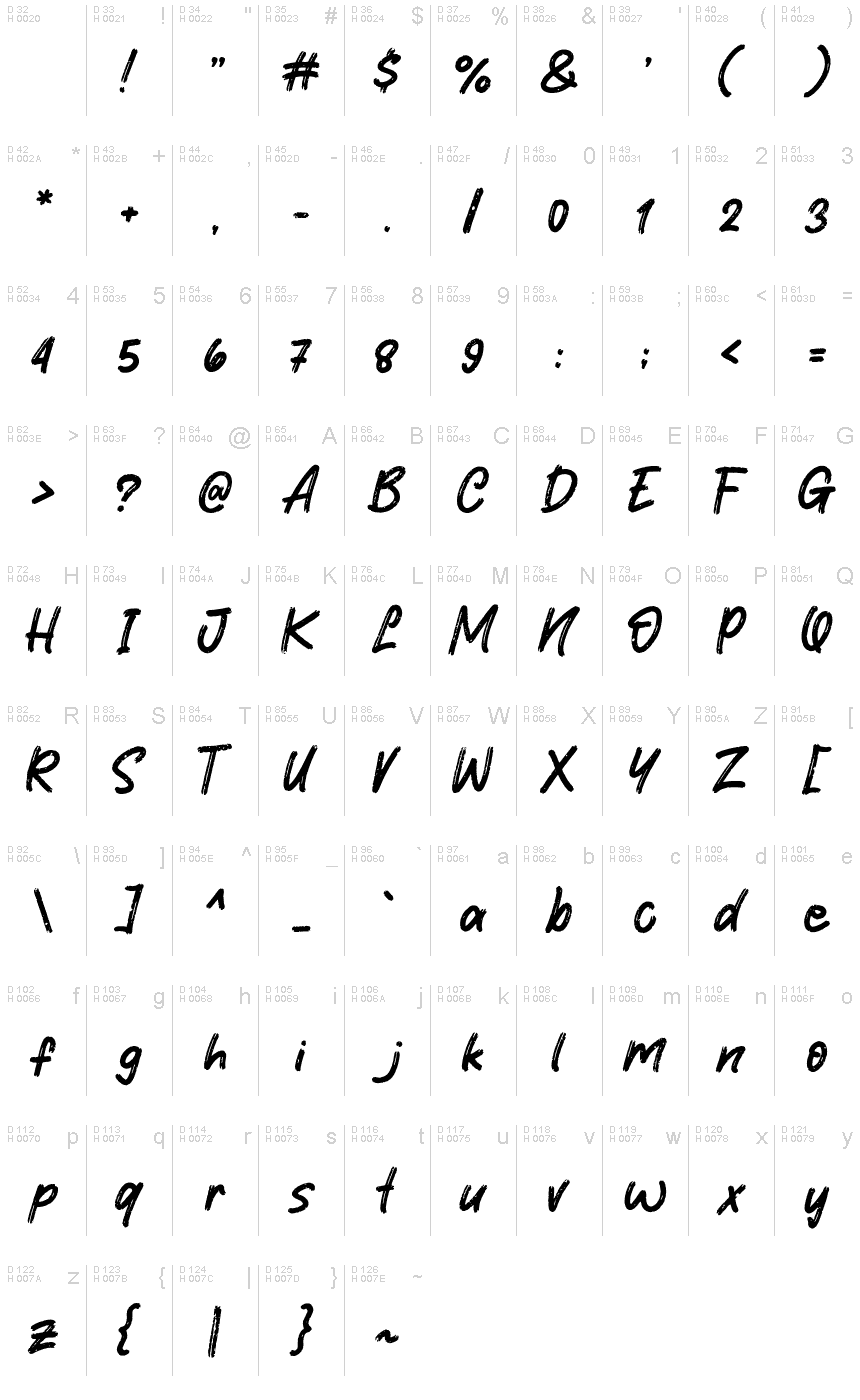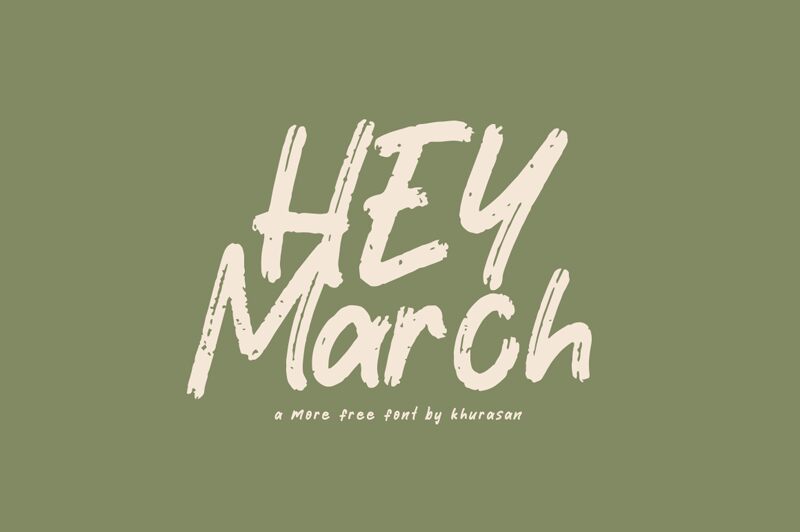
Hey March
Hey March is a stunning semi-light font designed by Khurasan. Its unique dry brush style gives it an edgy and artistic look that's perfect for a variety of creative projects. Whether you're designing a logo for a hipster coffee shop, creating graphics for a fashion blog or designing invitations for an outdoor wedding, Hey March is the ideal choice. With its slender letters and slightly rough texture, this typeface will give your designs a touch of casual elegance that's sure to impress. So if you're looking to add some personality and flair to your projects, try Hey March today!